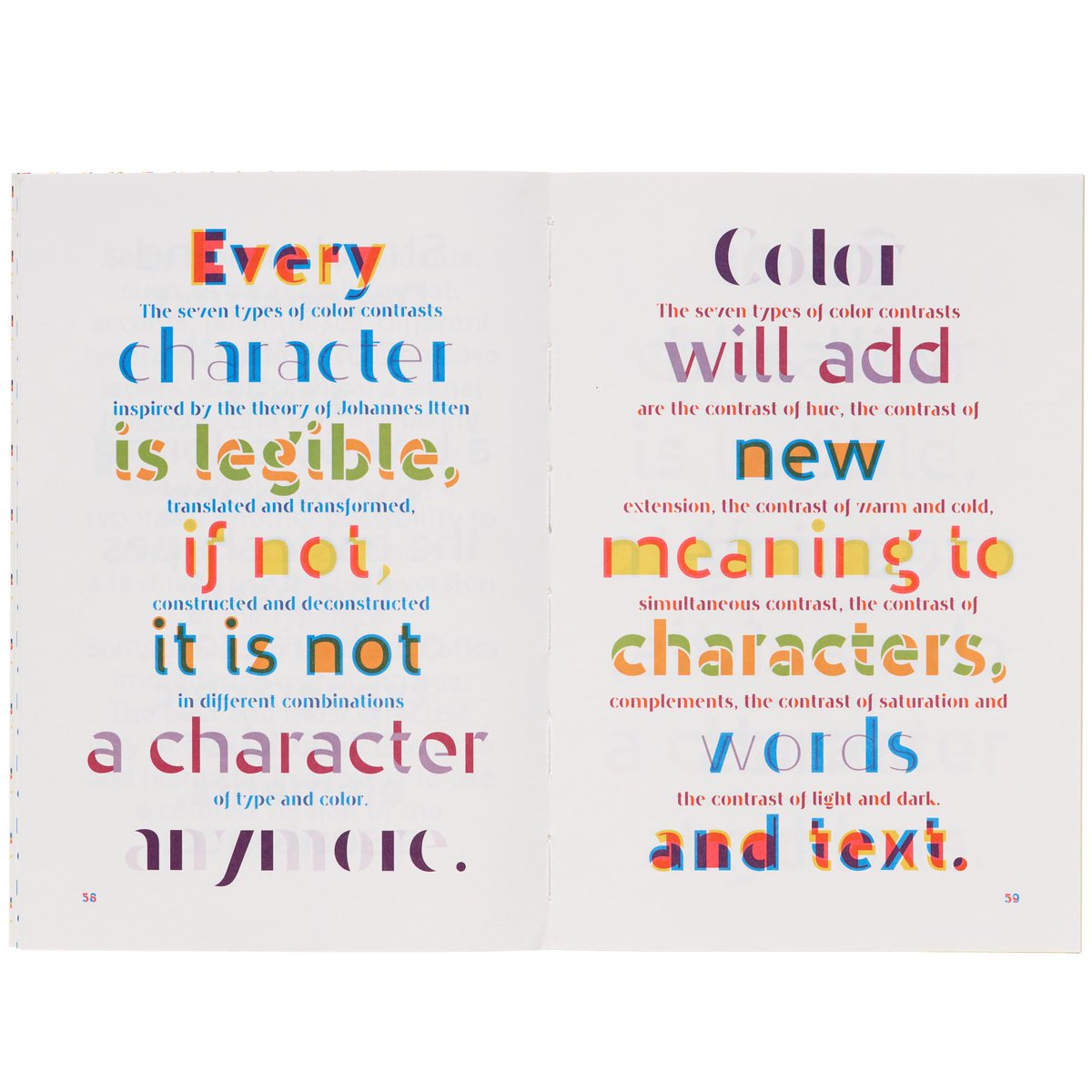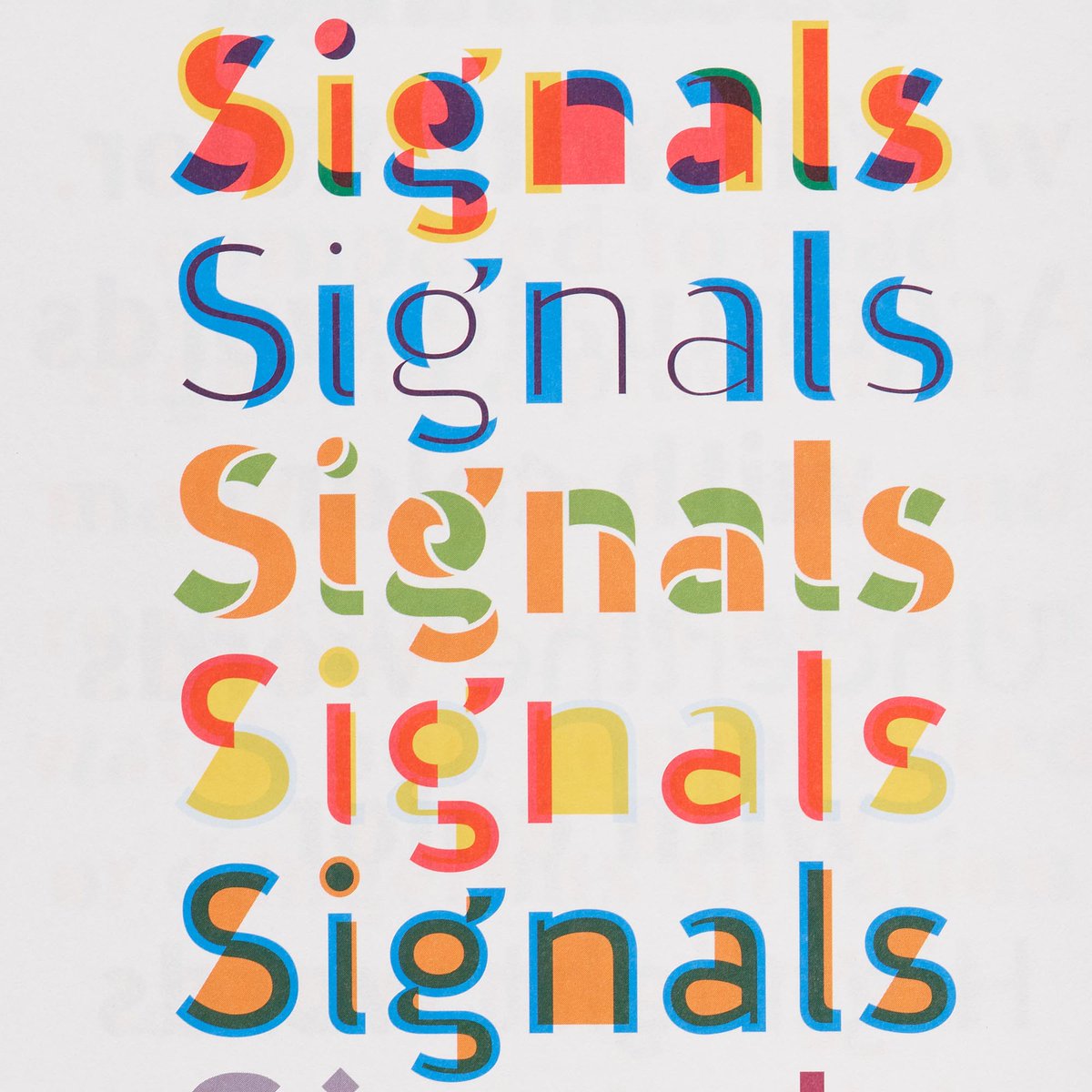
We are watching the onset of OTVar
‘How do we structure our design tools to adapt to the new advantages variable fonts provide us with?’by @Aetherpoint alistapart.com/article/user-i…
Great intro and overview of Variable Fonts from @TypeNetwork typenetwork.com/brochure/opent…
Mark van Wageningen, Novo Typo Color Book, 2017
What we think about when we think about type families. ilovetypography.com/2012/04/11/des…
First Public Working Draft of CSS Fonts Level 4 w3.org/blog/CSS/2017/… For variable fonts, color fonts, and configurable loading timelines!
designshack.net/articles/typog…, Typefaces that include multiple colors, shades or gradients.
Modular, parametric, and mind-blowing: Decovar, @dberlow’s variable font for @googlefonts. typenetwork.com/brochure/decov…
Visualize 3 axes from #variablefonts on a rotating cube: choose font, character, speed, number of instances per axis axis-praxis.org/playground/cub…
alphabettes.org/responsive-var… What The Government Doesn’t Want You to Know About Variable Fonts